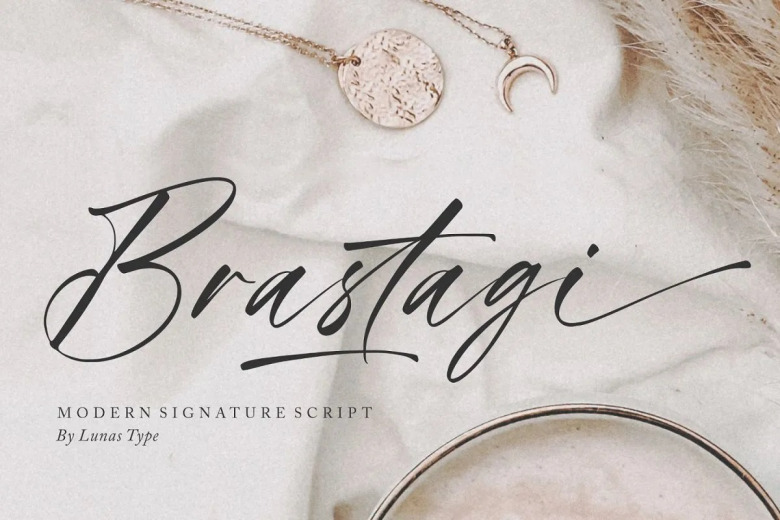
Brastagi Font
Brastagi is a handwriting script signature Typeface! Font that will give you to feel a natural ink flow in your handwriting with modern looking ligature! If you look closely at each letter, you will notice that no form is perfect; on the contrary.
Brastagi is suitable for any design needs such as merchandise, T-shirts, wedding invitations, titles, book covers, social media posts, websites also events and much more.
Brastagi Signature Script Font